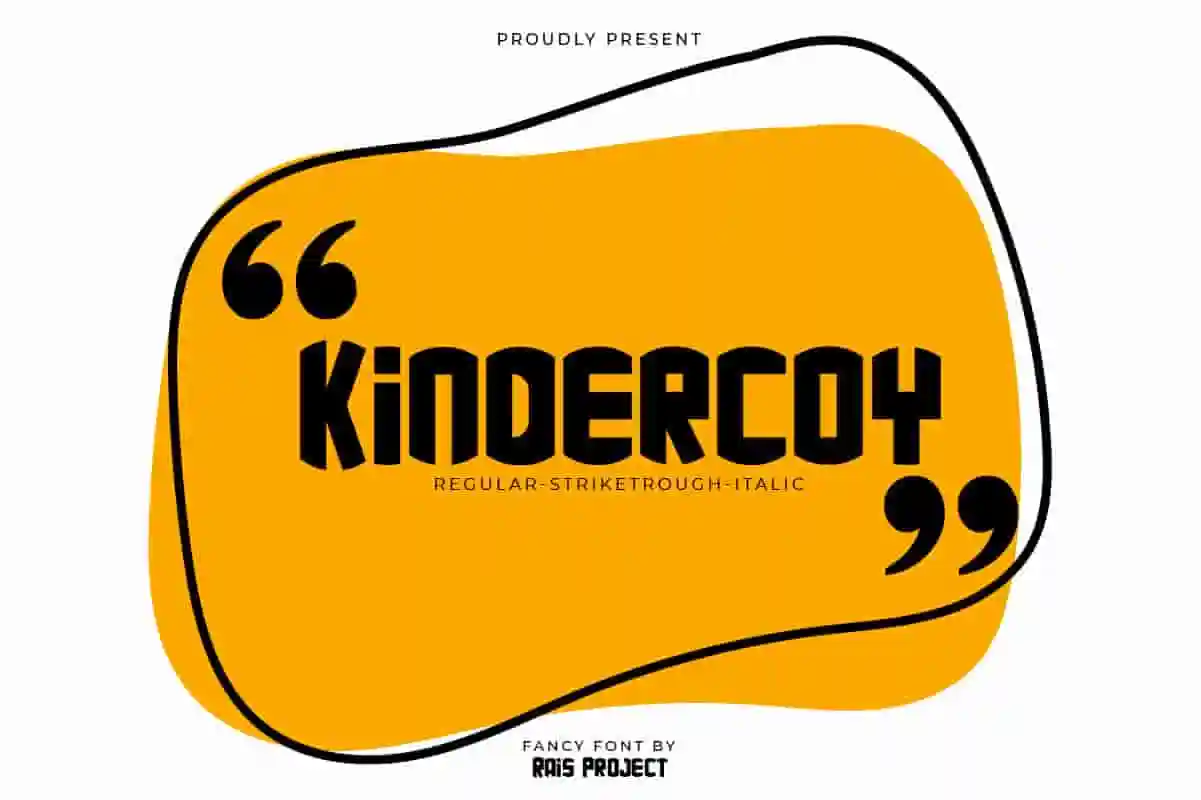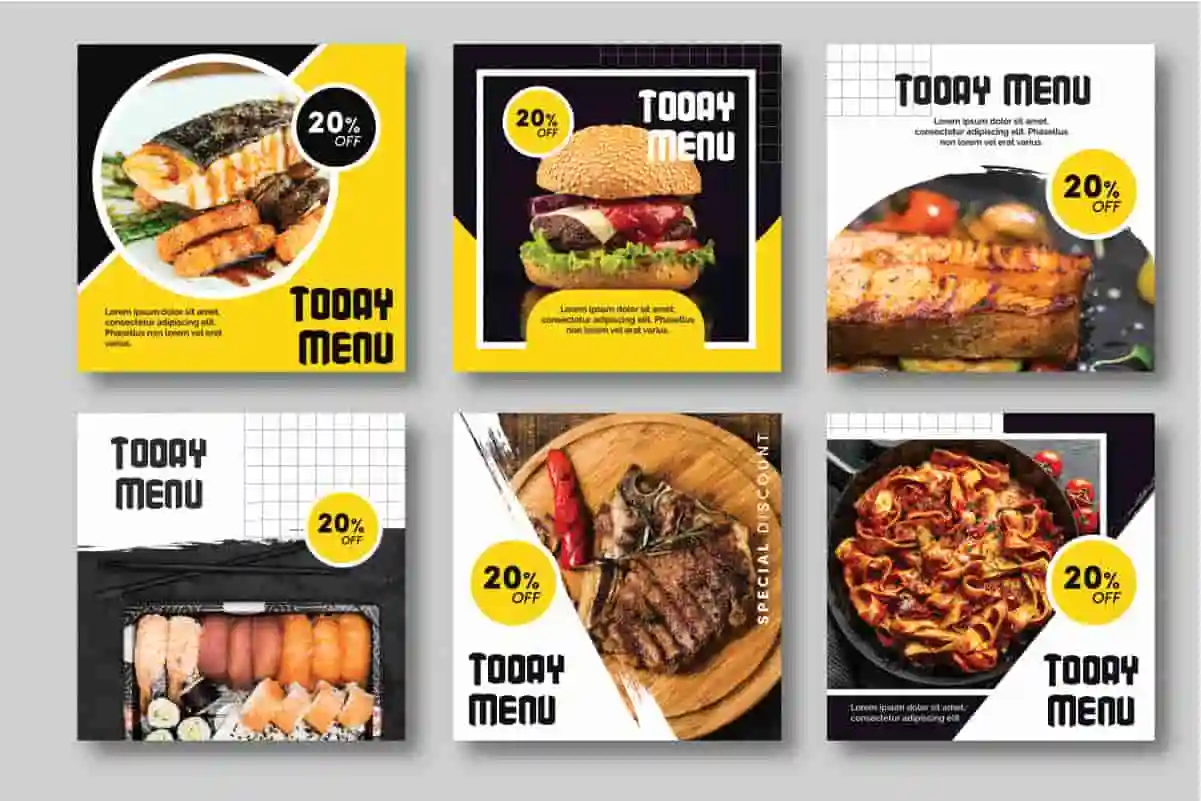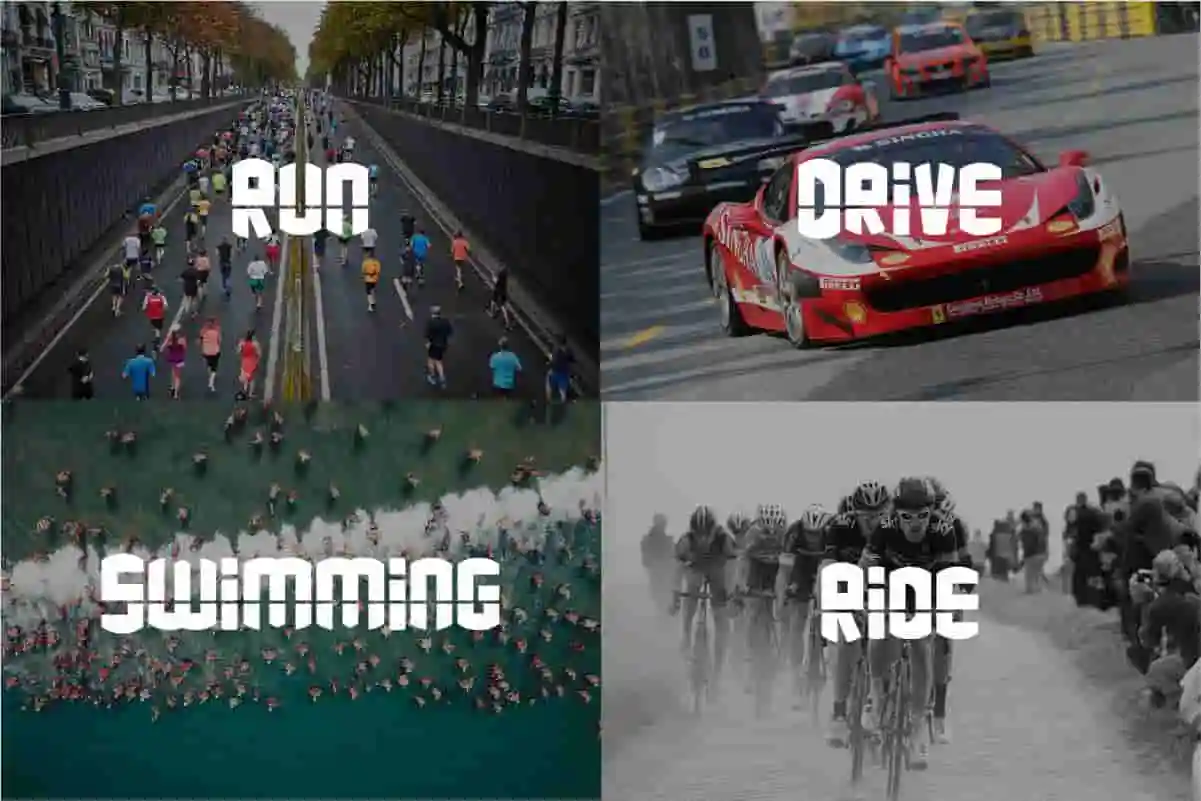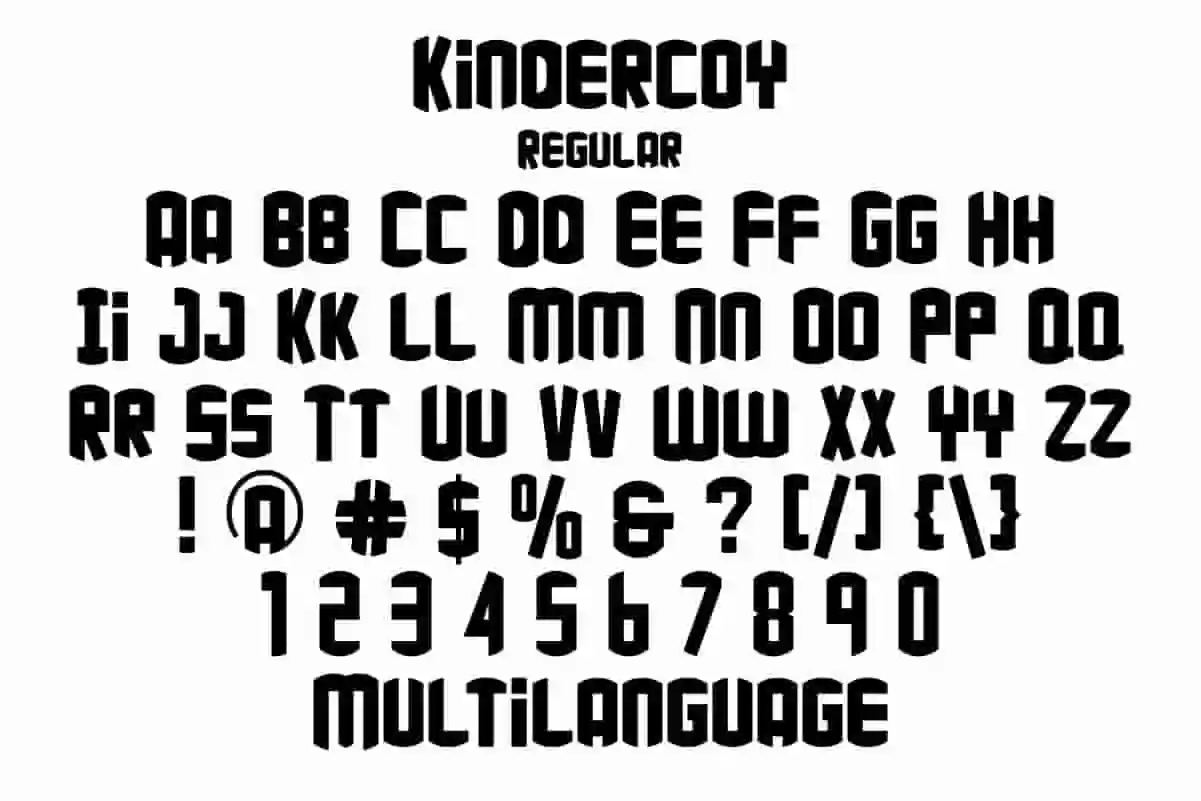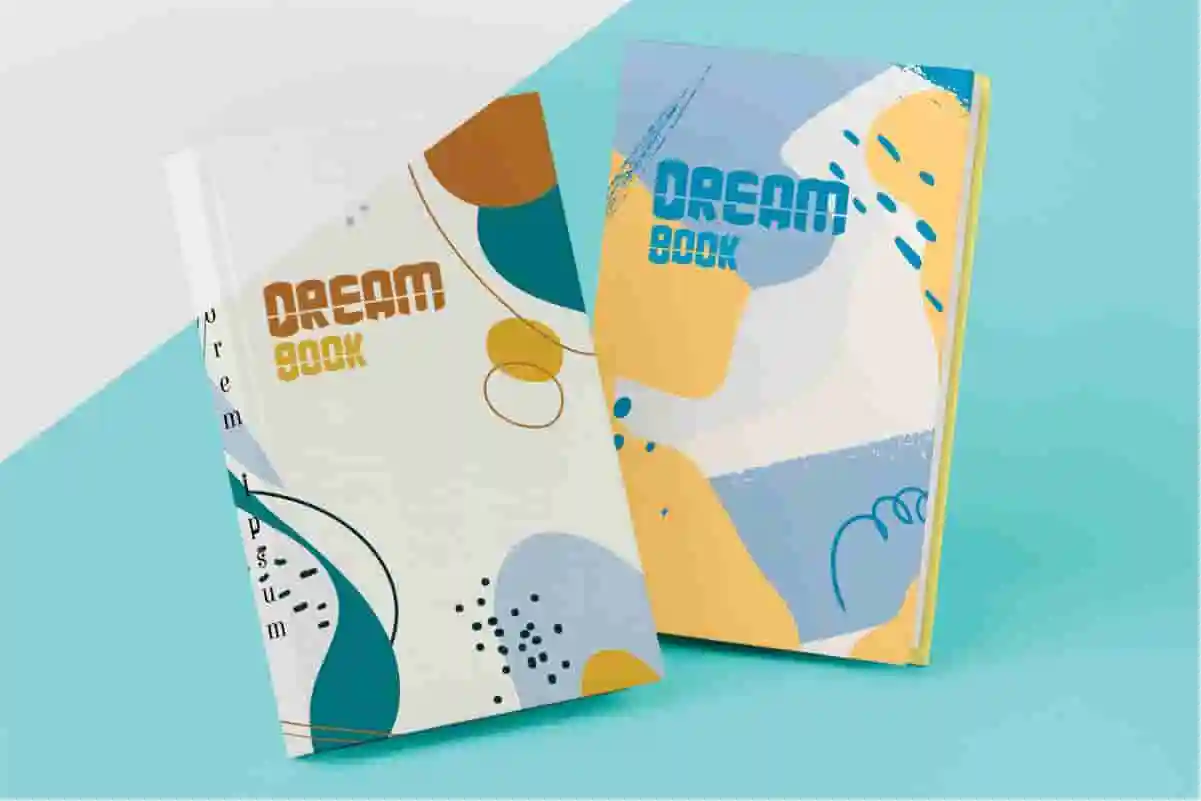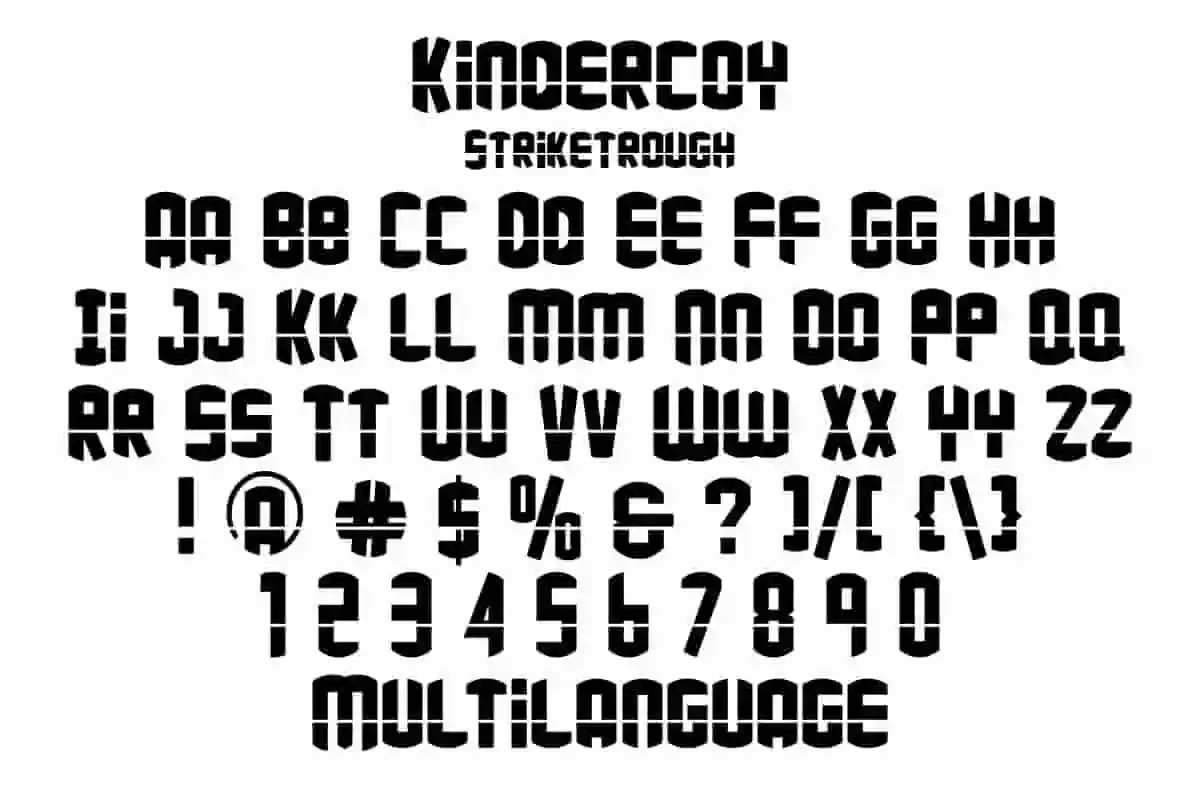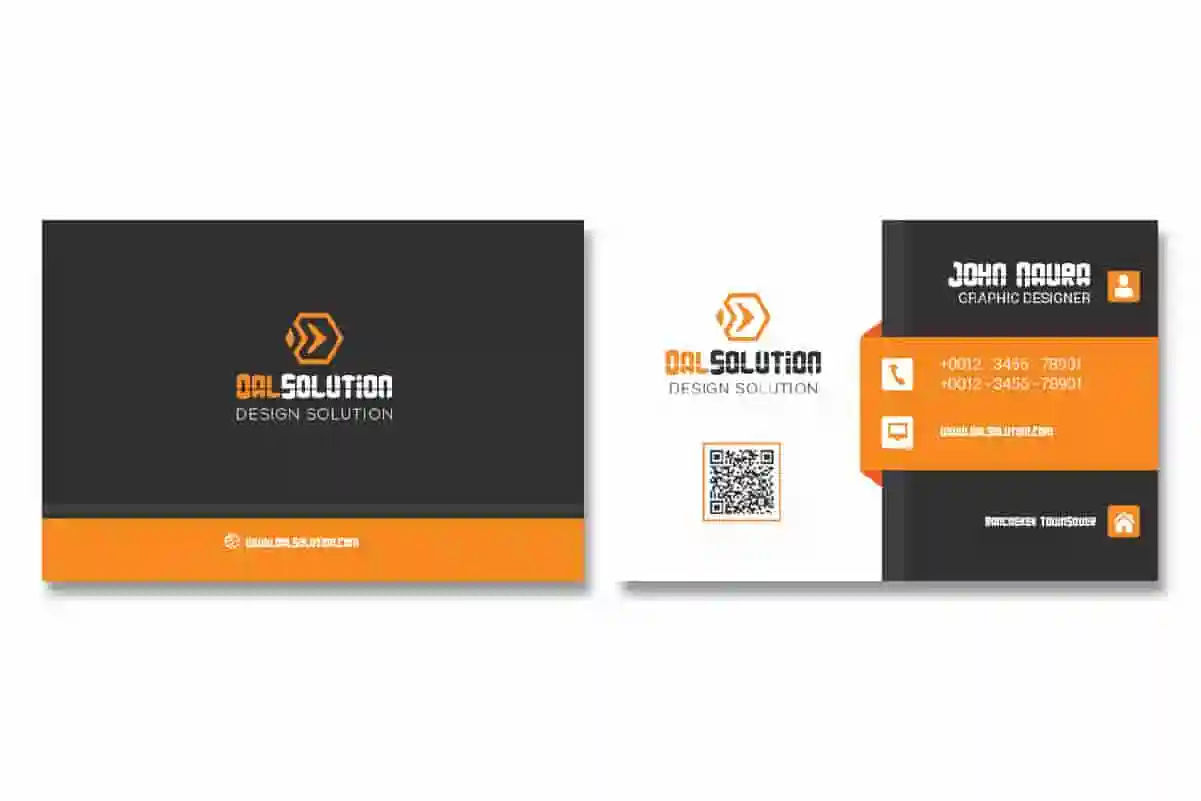
Kindercoy Sans Serif Font
Kindercoy Font is a fun display decorative sans serif font family, designed by Rais Project. It will be great for Games, Movie, Music, events, Food branding, Fun related product Branding etc
Kindercoy Font is a fun display Sans Serif font family, designed by RaisProject.  You can see the demo font below. You can also input any word you want so you can see what it will look like :
Kindercoy Sans Serif Comic Font remotely made by RaisProject team in Indonesia. The font handcrafted for any your special projects including : brands, promotion, events, games, advertising, magazine, signage, invitation, stationery, social media posts, label, or and any projects that need unique style. The industries for this font is Book, Events, Games, Magazine, Music, Movies, Cafe, Restaurant etc On the package You will get: